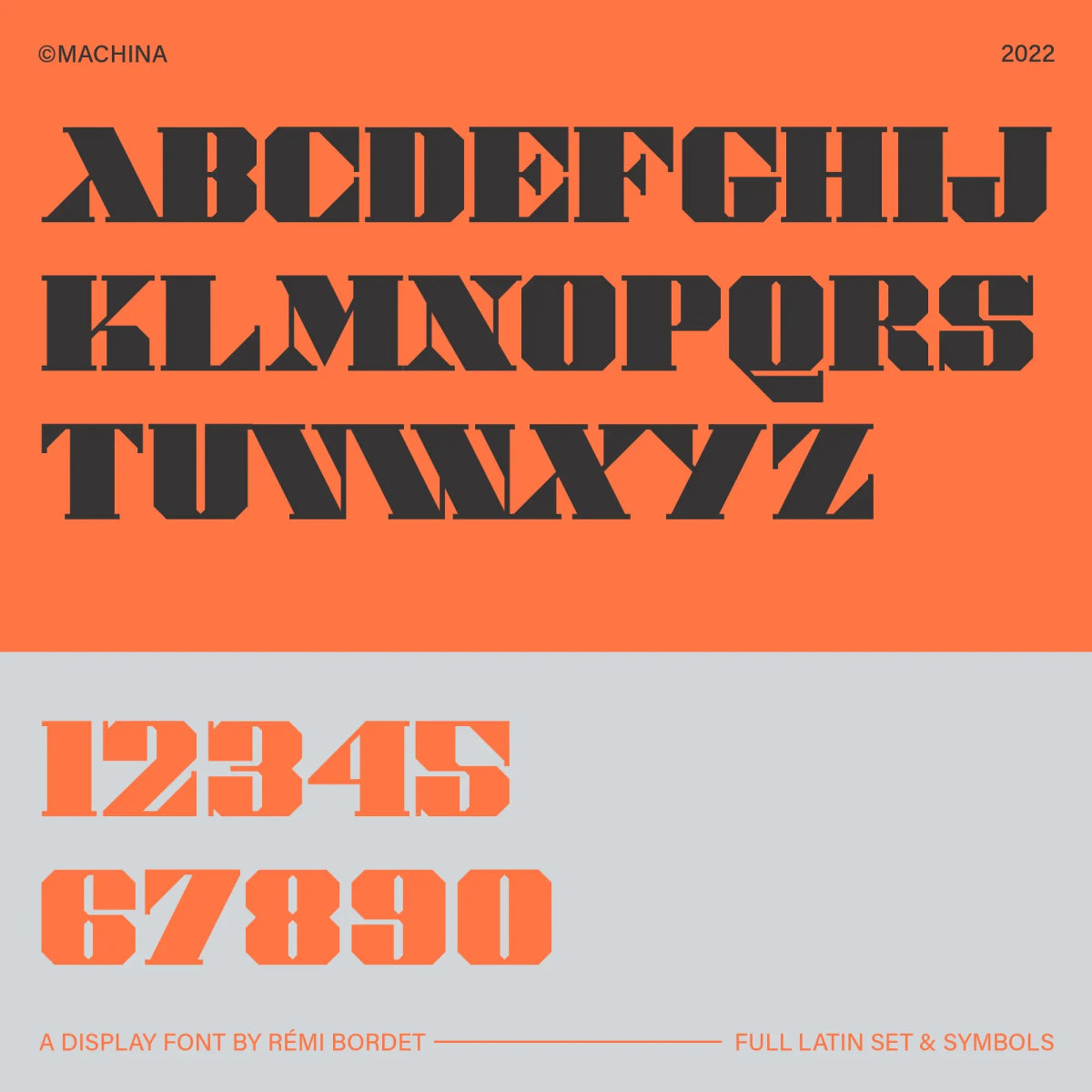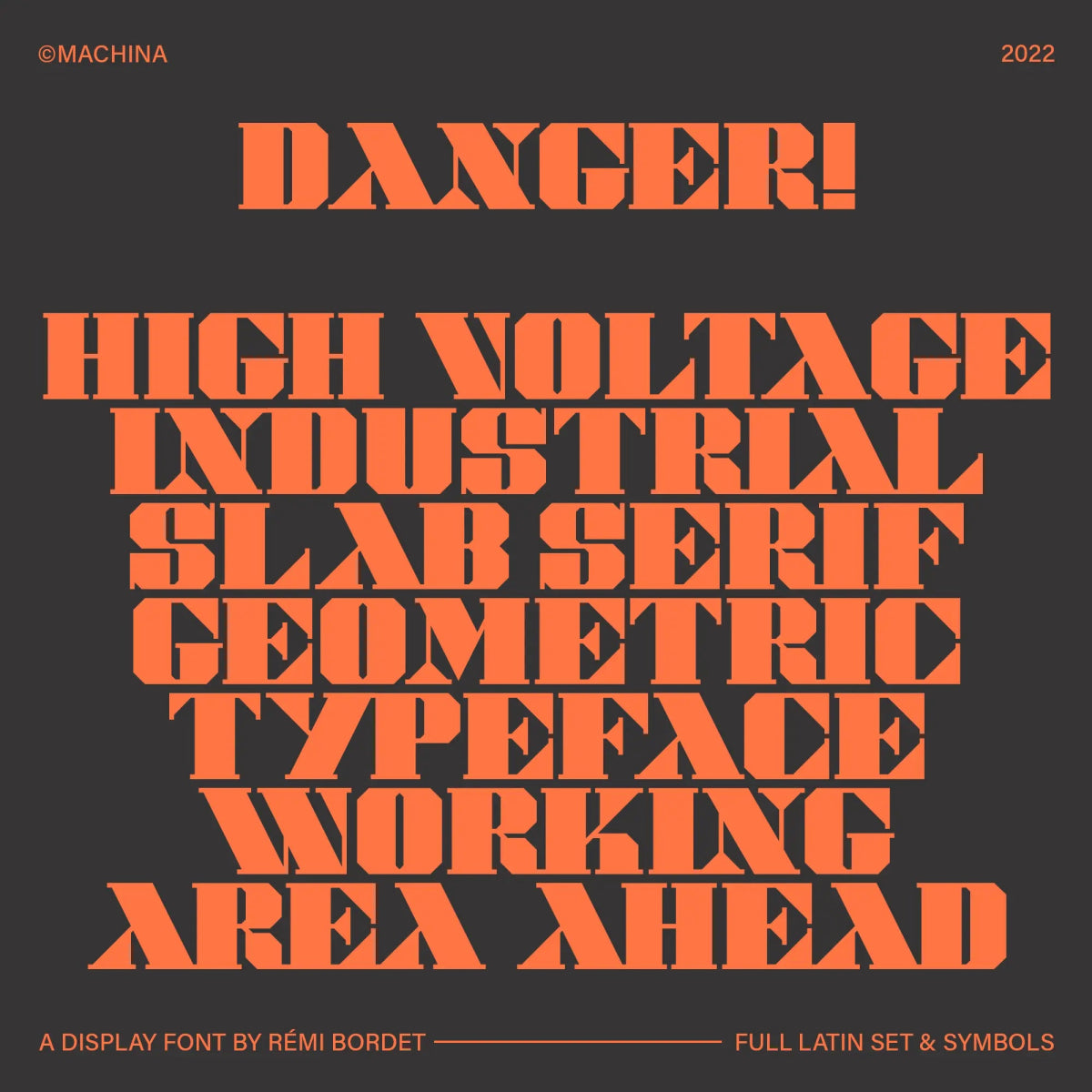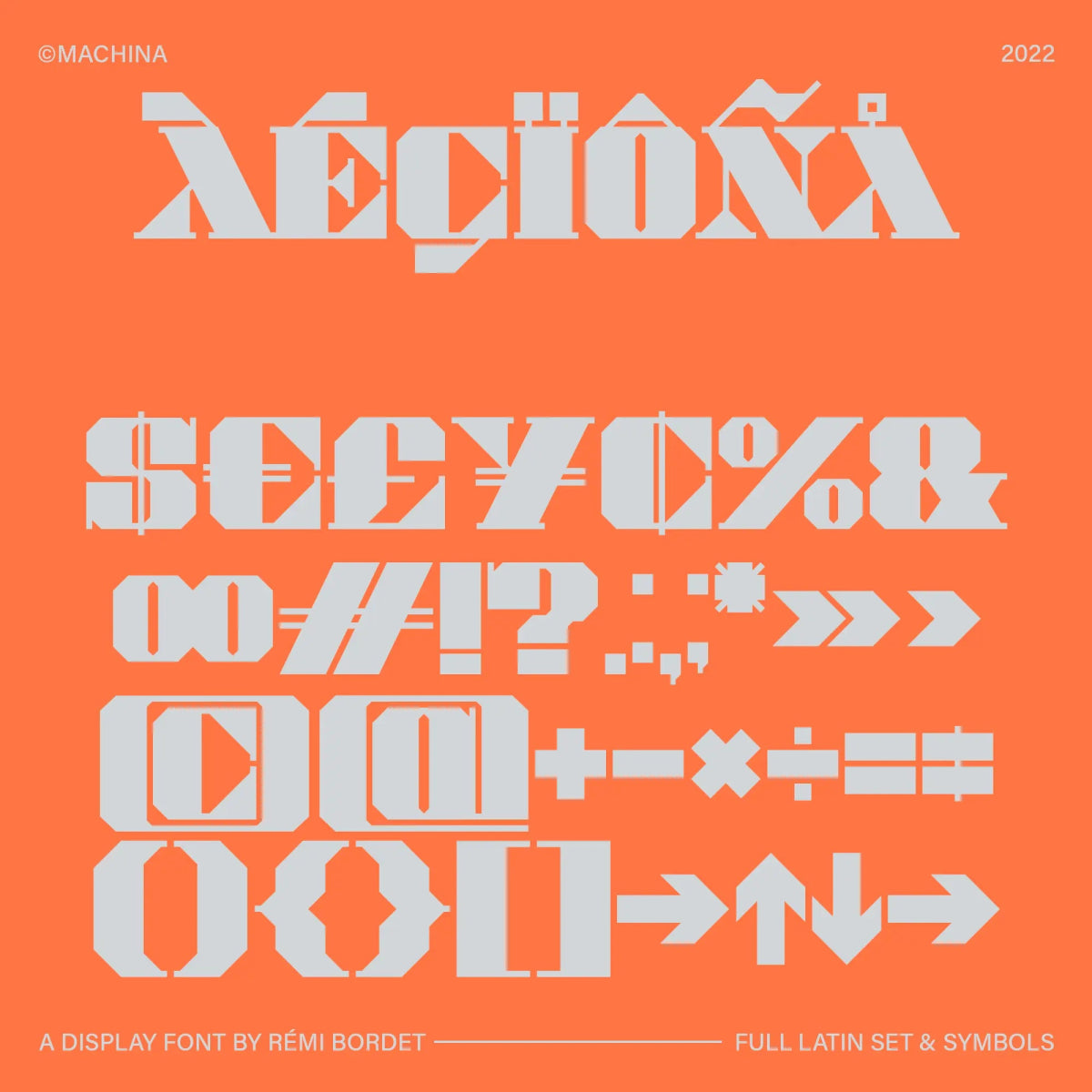
Machina Display Font
by Rémi Bordet
Machina is a powerhouse display font inspired by military stencils, brutalist design, and heavy machinery. With sharp angles, blocky proportions, and mechanical precision, it’s perfect for posters, tech branding, apparel, and strong visual statements.
Font Features
• Full uppercase Latin alphabet
• Full set of numbers and symbols
Rémi Bordet
Rémi Bordet is a french graphic and type designer and artist who creates bold, minimalist posters combining impactful imagery and typography. His work highlights contradictions, both aesthetically and symbolically speaking, through stylistic visual metaphors that blend brutalist aesthetics with emotional depth.